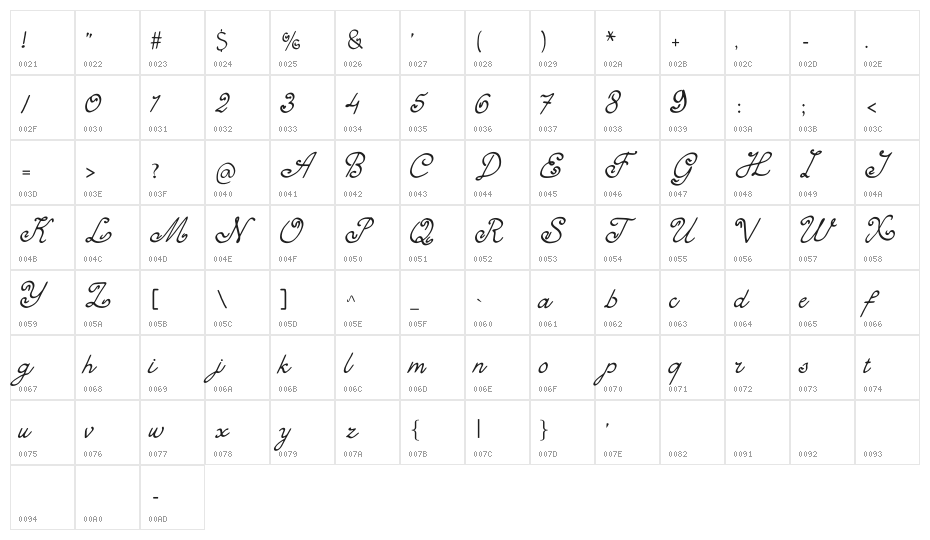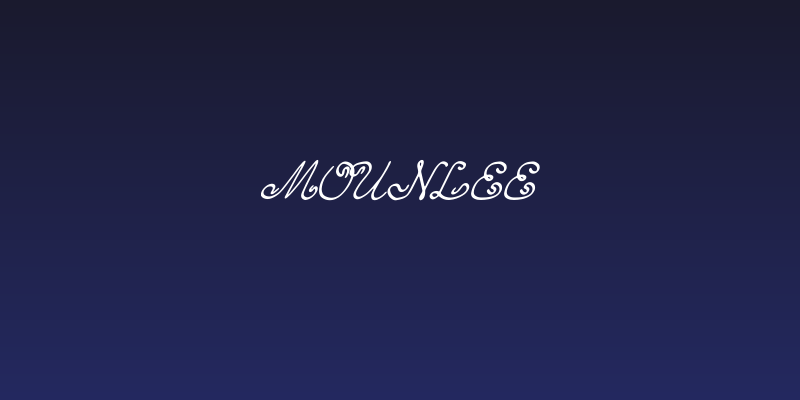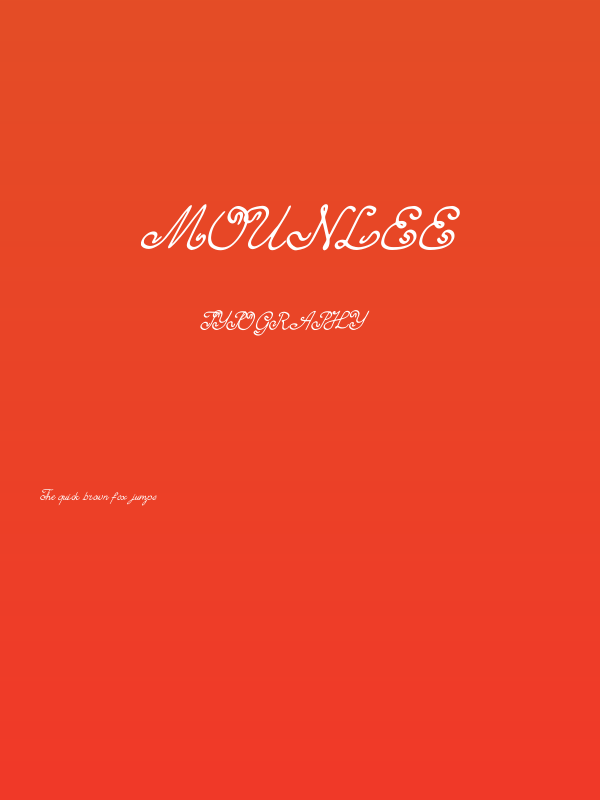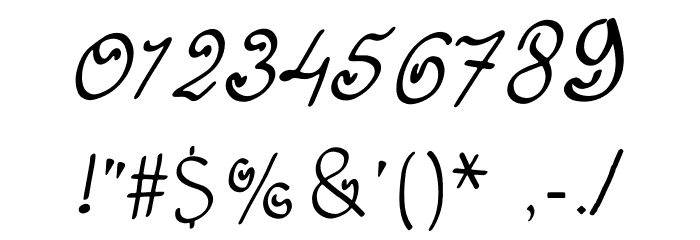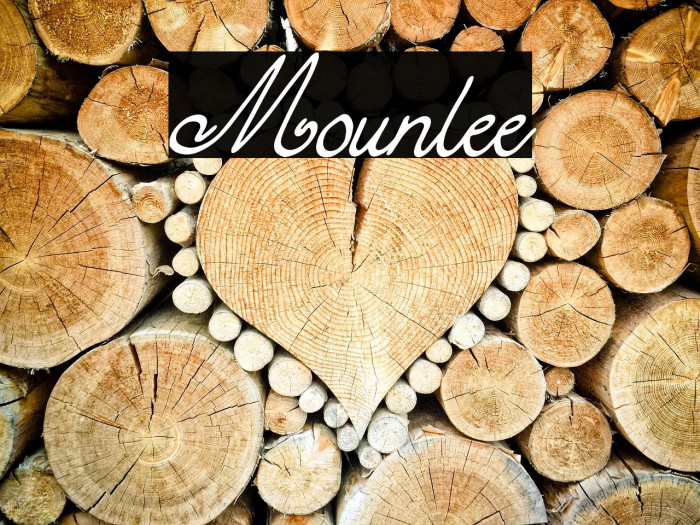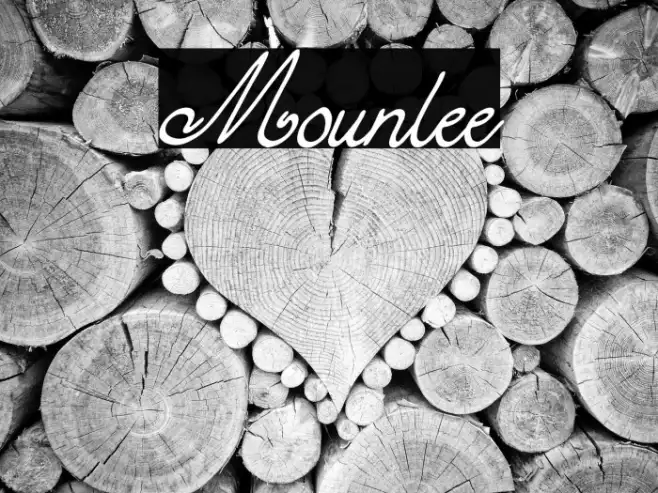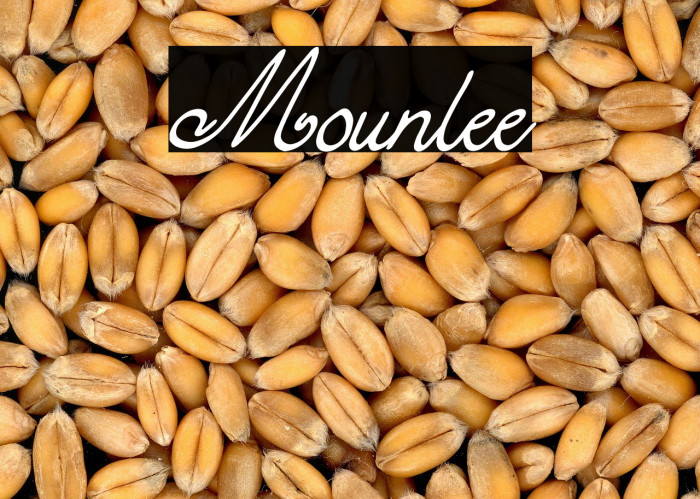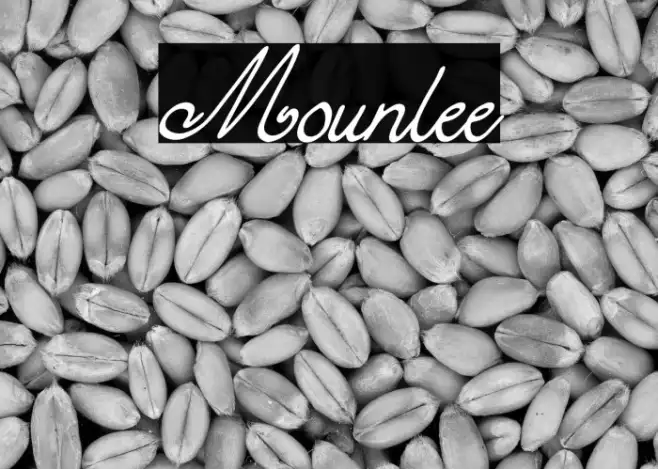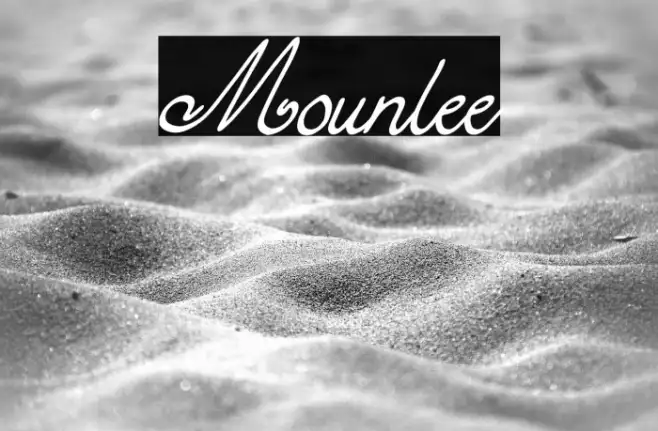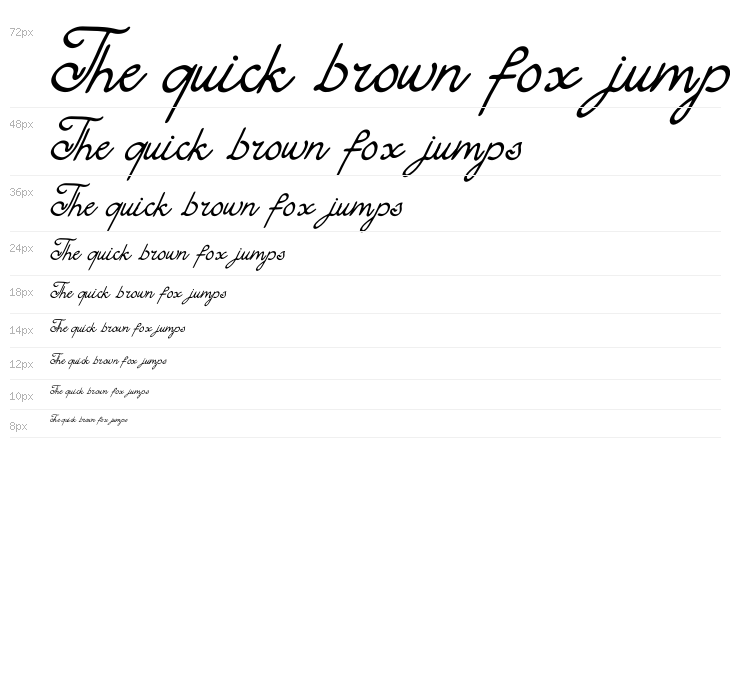
Mounlee Font
Mounlee Description
This font exhibits a classic cursive style with elegant, flowing lines and a sophisticated appearance. The uppercase letters are adorned with subtle flourishes, giving them a decorative touch, while the lowercase letters maintain a smooth, connected script that enhances readability. The numerals are consistent with the overall style, featuring slight embellishments that add to the font's charm. Special characters are designed to match the cursive theme, ensuring a cohesive look across all text. The font's graceful curves and balanced proportions make it suitable for a variety of design applications.
| Proposed Projects | Ideal for wedding invitations, greeting cards, elegant branding, and decorative signage. |